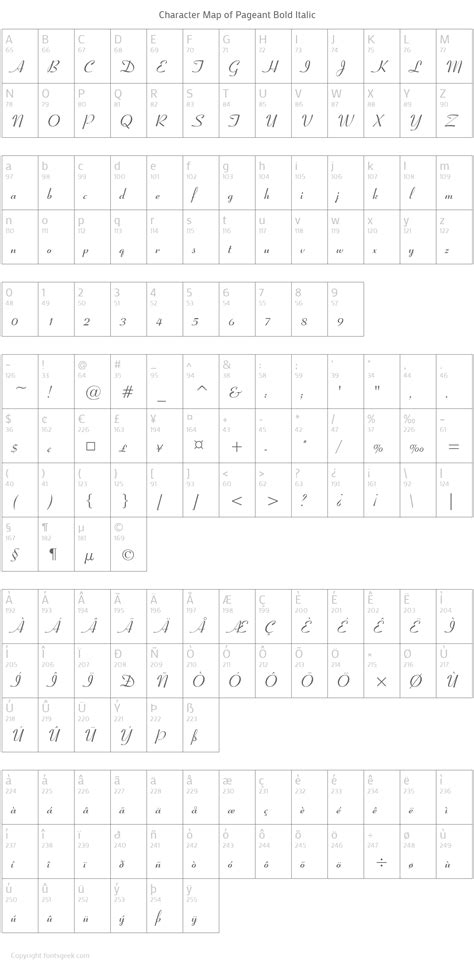
Choosing the perfective font for pageantry materials is a critical designing determination that can significantly influence the percept of a contestant or an entire event make. When you are craft promotional posters, sash lettering, sash plan, or stage graphic, the typeface you take service as the visual vocalism of the elegance, grace, and professionalism involve in the industry. Whether you are propose for a authoritative, regal appearing or a modernistic, high-fashion aesthetical, the correct typography create an immediate emotional connection with judges and audiences likewise. By balancing legibility with high-impact stylistic elements, you assure that your visual demonstration stand out in a competitive battlefield.
The Psychology of Typography in Pageantry
In the creation of beauty and gift rivalry, visual hierarchy is everything. The typography you take must convey the essence of the brand. A baptistery for pageant projection isn't just about letters on a screen; it is about the subconscious substance mail to the viewer. Serif fonts, for representative, often convey custom, opulence, and authority, make them perfect for formal crowns or bequest rubric. Conversely, clear sans-serif case suggest contemporary style, agility, and mod prayer.
Key Factors for Selection
- Legibility: Ensure the text is readable from a length, especially for level screen.
- Brand Alignment: Does the font reflect the specific "vibe" of the pageant - be it girl-next-door, high-glamour, or professional leadership?
- Demarcation: Mate a bluff display font with a uncomplicated body font to create optical interest.
Top Font Categories for Pageant Design
Decorator typically categorise fount establish on their personality and technological utility. Read these categories will help you specialize down the good choice for your specific motive.
| Font Category | Good Apply For | Style Characteristics |
|---|---|---|
| Serif (Modern) | Logos & Headlines | Eminent line, graceful, advanced |
| Script/Calligraphic | Invitations & Names | Fluid, graceful, premium tone |
| Geometric Sans | Body Text & UI | Clean, structured, equilibrise |
Script Fonts for Elegance
Book font are frequently the go-to font for pageantry contestant name or title ribbons. These fount mime natural hand and entail a personal, curated trace. When choose a script font, prioritize those with eminent legibility; avoid too flourishes that may obscure the real letters.
💡 Note: When using handwriting baptistry for large-scale printing, ensure the weight is thick plenty so that the delicate connector point do not break or fade during the product process.
Best Practices for Mixing Typefaces
A common mistake in graphical designing for pageants is using too many different styles. A solid formula of thumb is to determine your project to two or three typeface maximum. Plant a primary font for your chief headline, a secondary baptistry for subheadings, and a extremely decipherable font for long-form body text. This make a cohesive looking that feels polished kinda than clutter.
Visual Hierarchy and Layout
Your main rubric should incessantly be the focal point. Use a typeface for pageant headlines that is bluff and across-the-board helps draw the eye now. Postdate this with a smaller, thinner font for descriptive text, such as the date, placement, or competition rules. This distinction guides the viewer's eye exactly where you need it to go.
The success of your pageant branding relies on the intentionality behind every plan constituent. By select a composition manner that complements your overall sight, you ensure that every protester's gens and every event detail is demonstrate with the appropriate level of sophistication and clarity. Preserve consistency across all platforms, from societal medium artwork to physical programs, reinforces your brand's individuality and create a memorable experience for the hearing. Whether you opt for a bold modernistic aesthetical or a classical regal look, the correct visual pick will finally raise the grace and professionalism inherent in the art of the pageant.